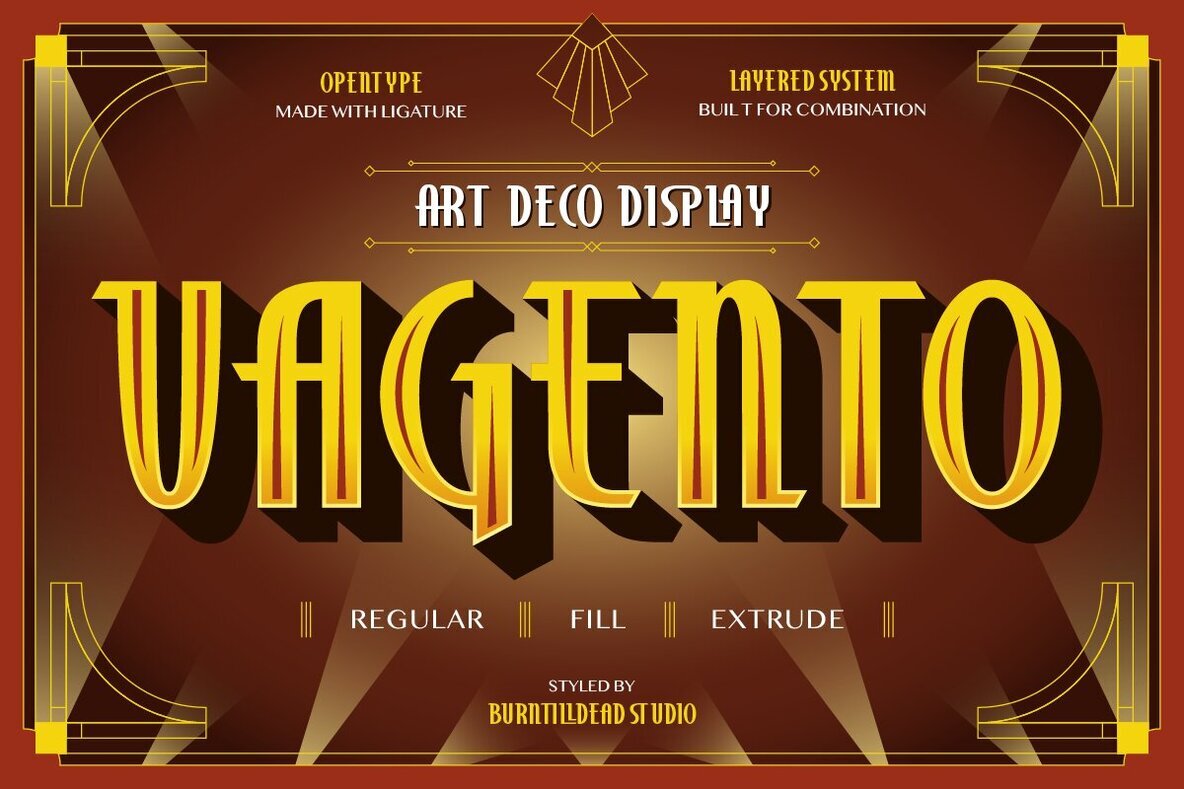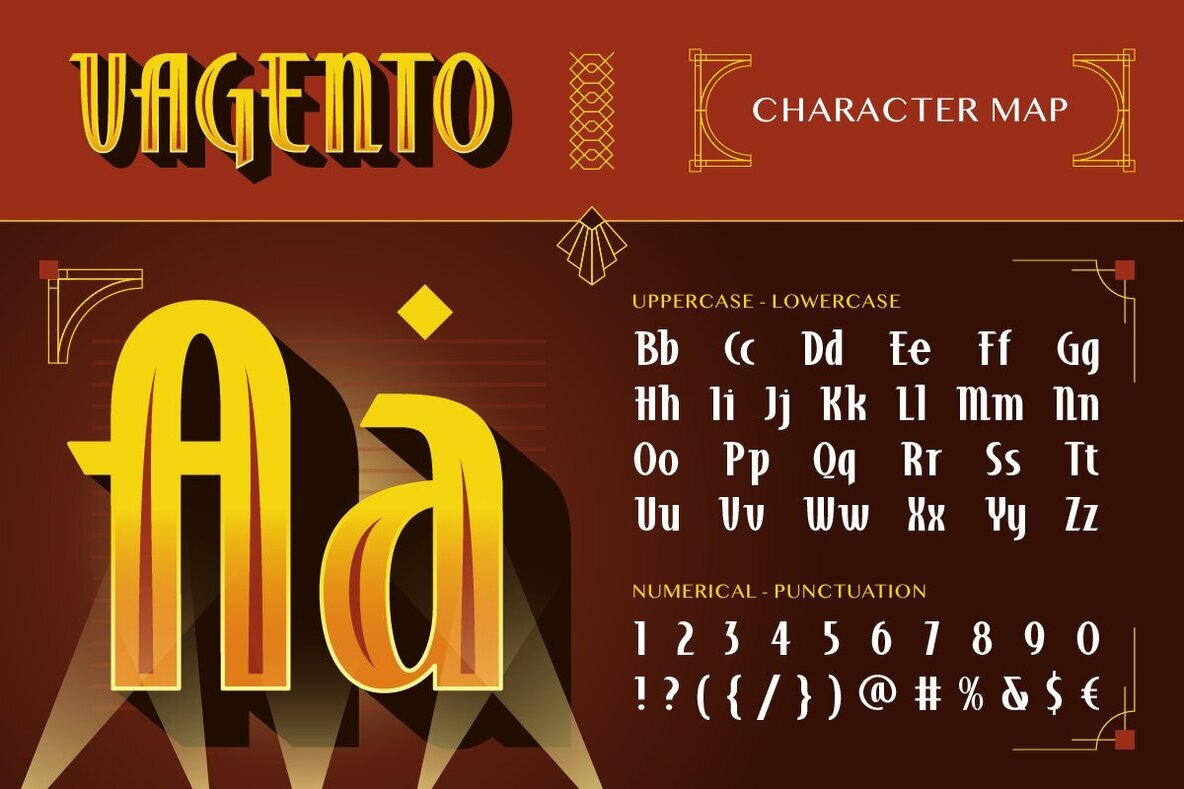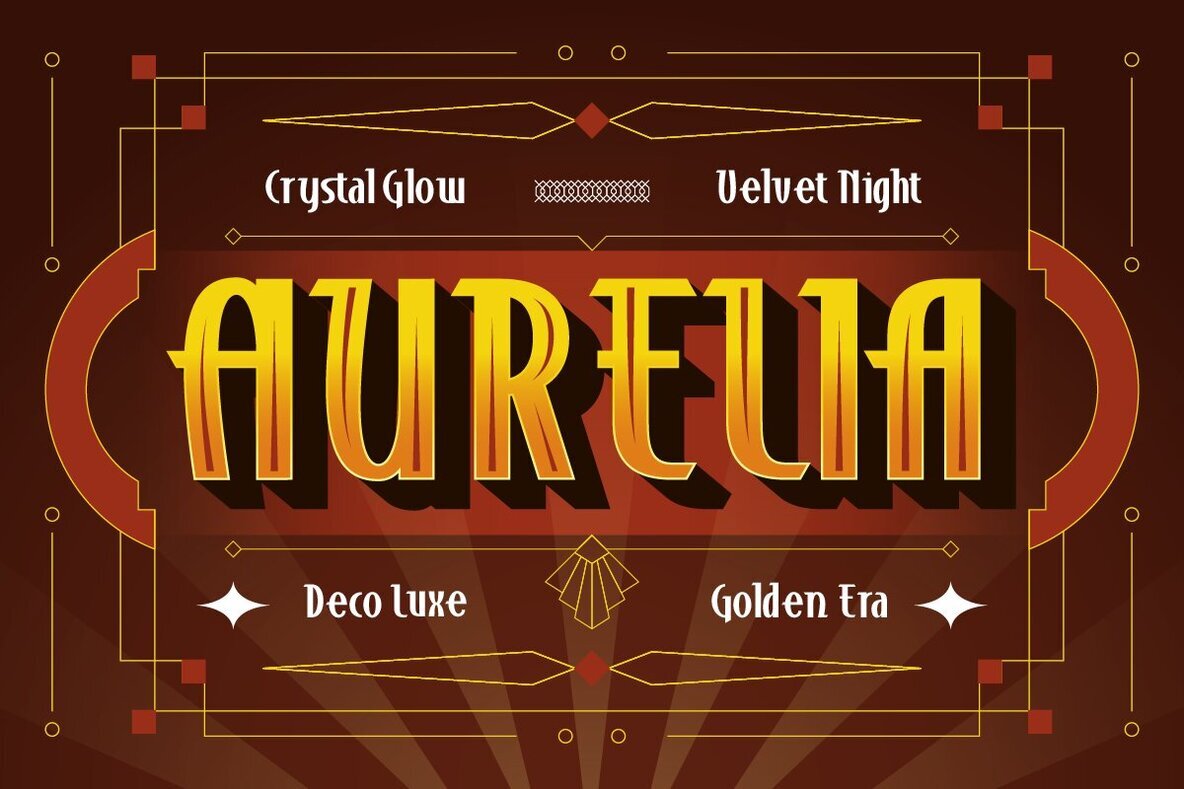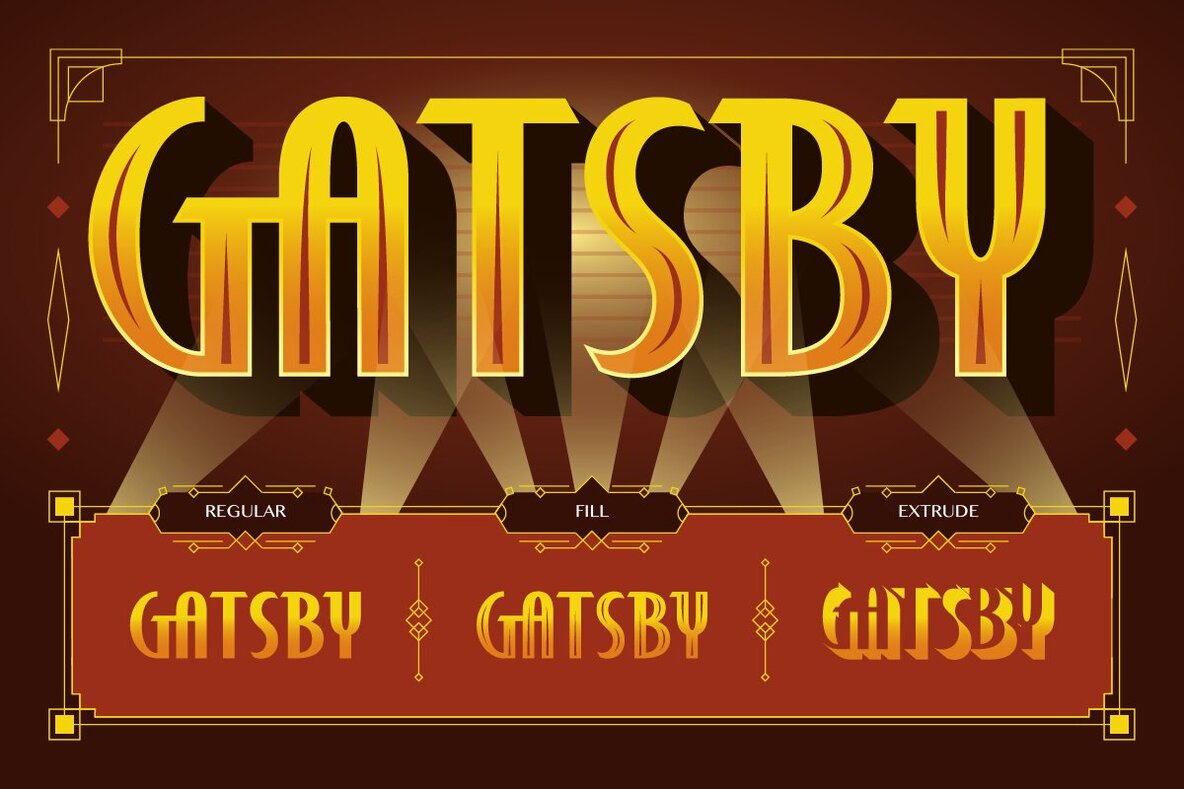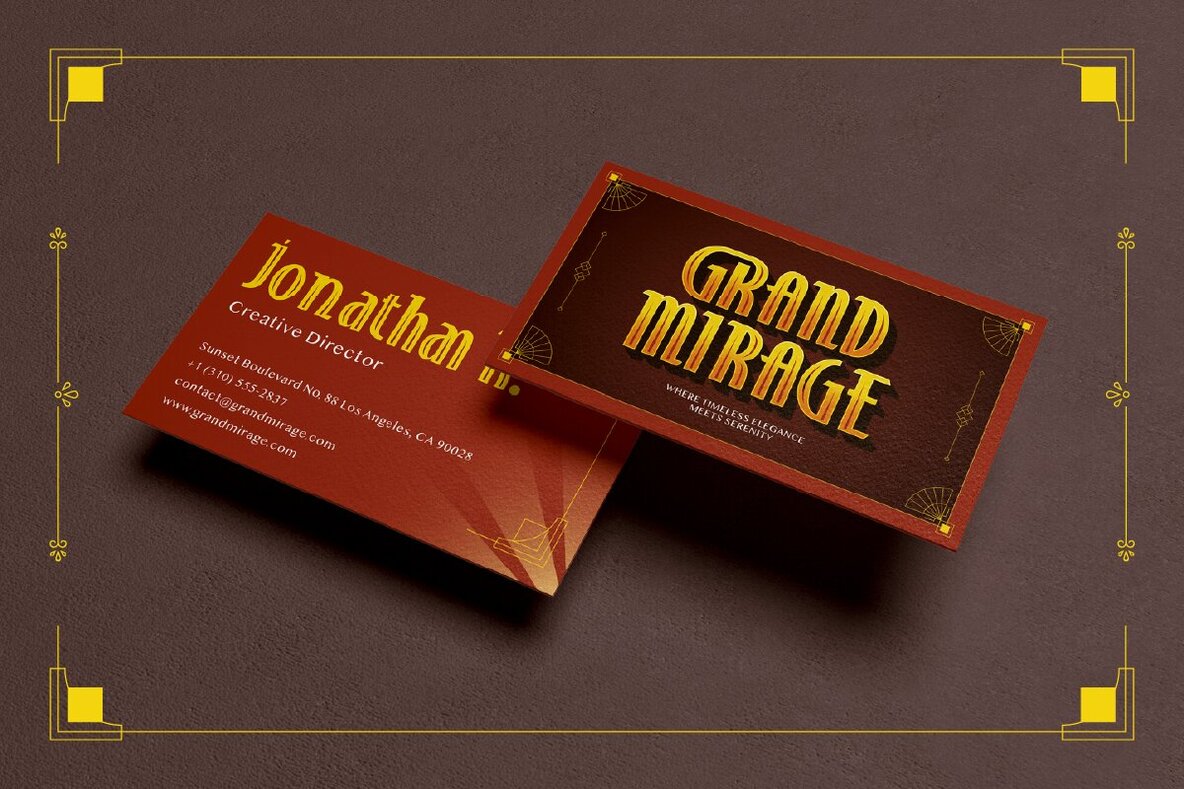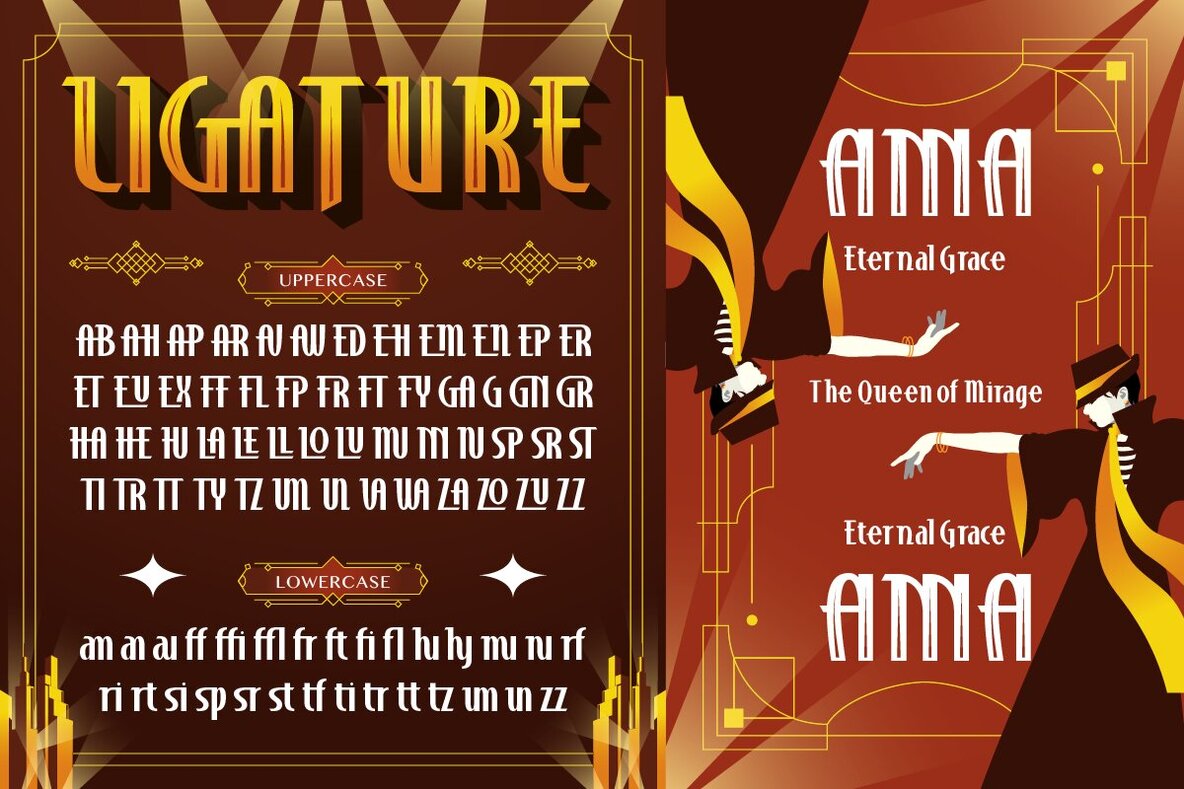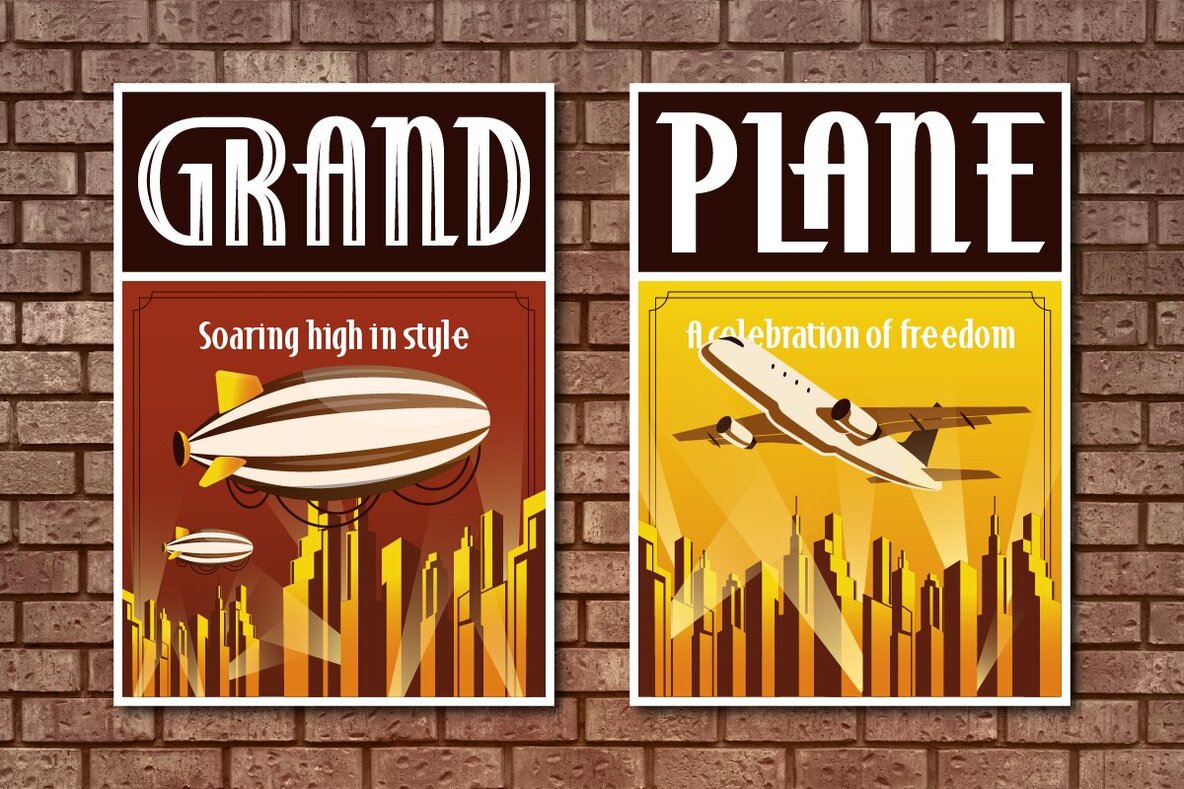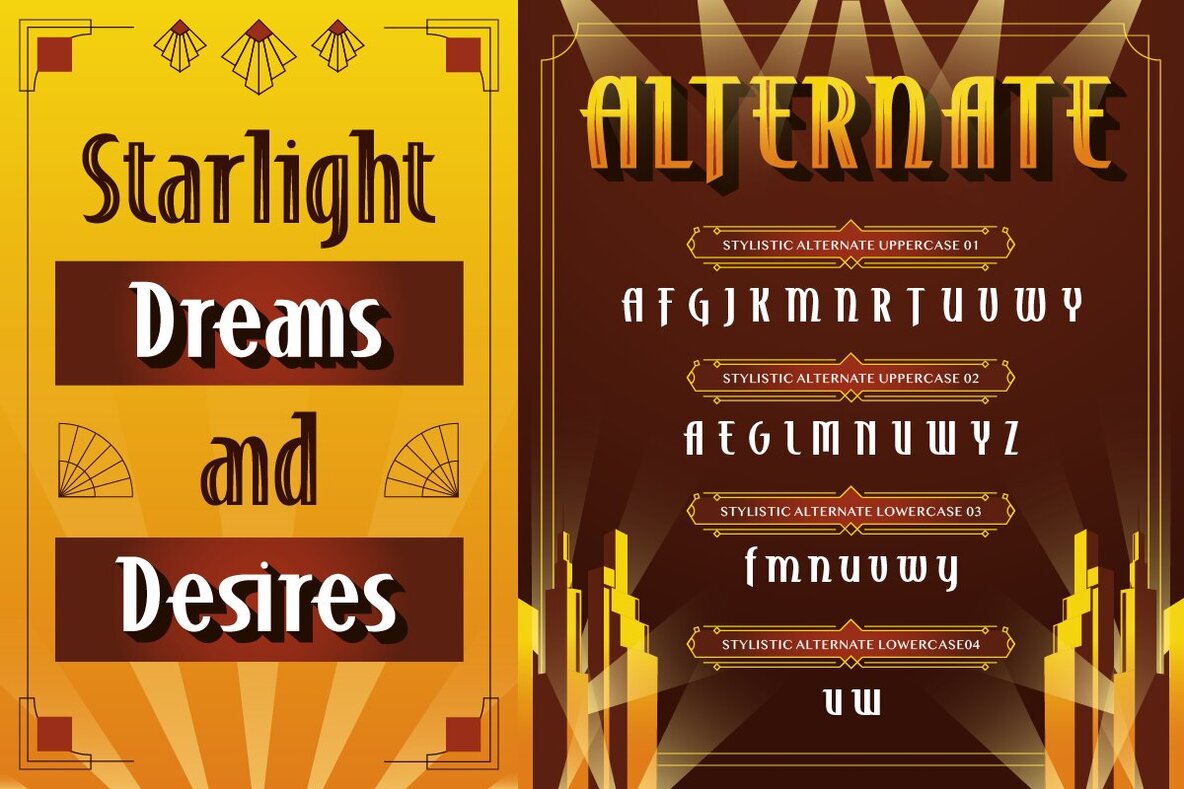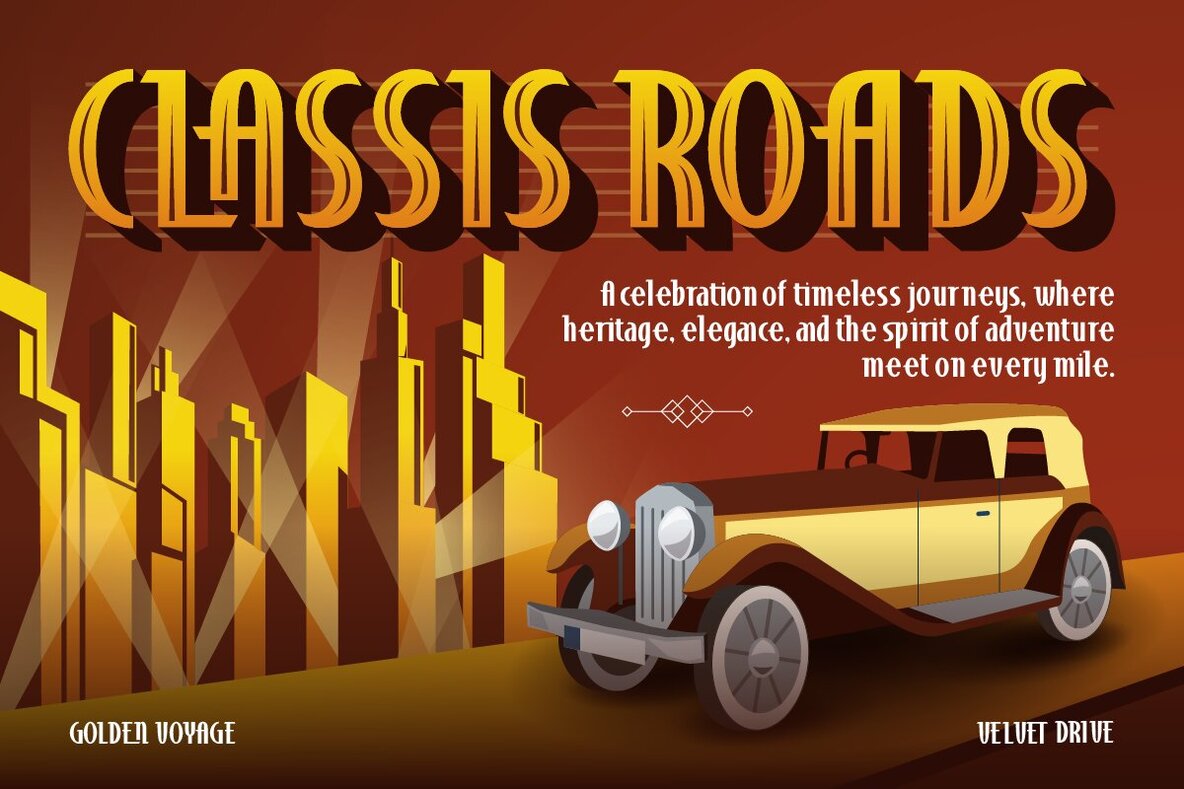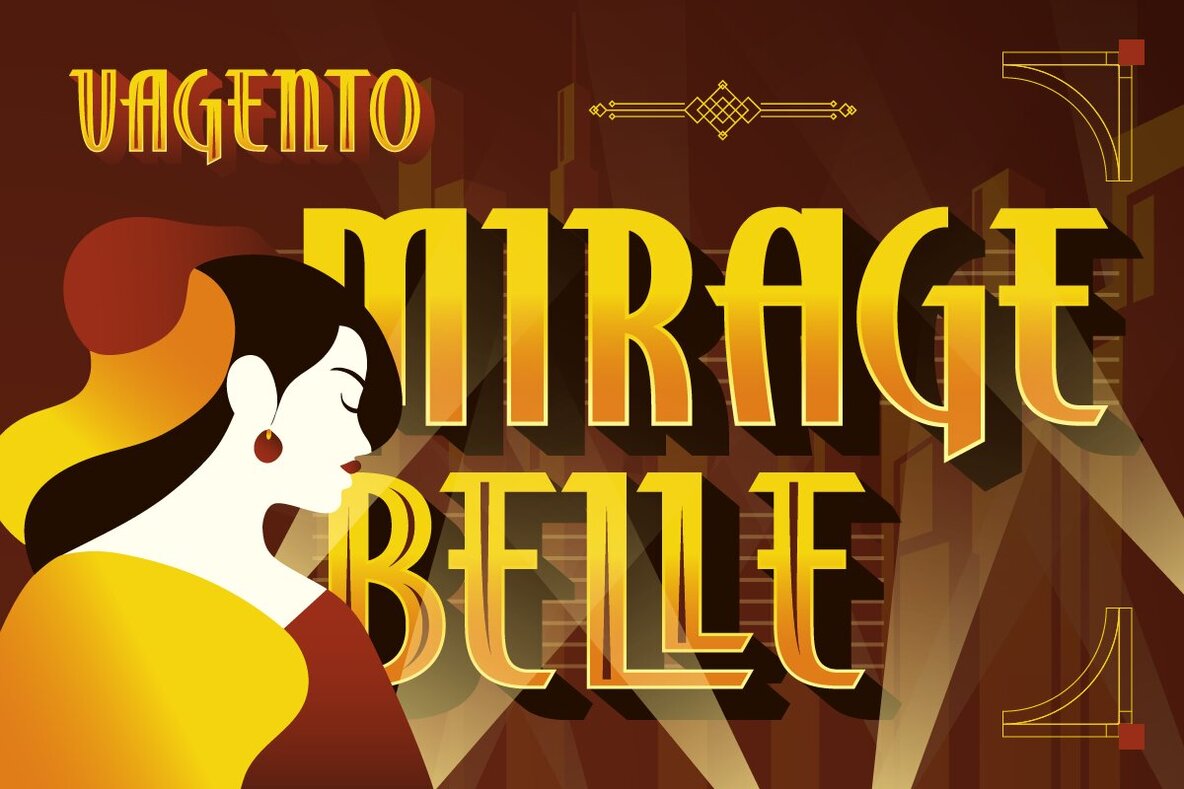
Vagento Font
Vagento Regular
Vagento Extrude
Vagento Fill
Vagento channels the spirit of the jazz era, drawing on the iconic Art Deco aesthetic of the 1920s. Its bold geometric forms and refined curves recall the luxury and excitement of nights filled with ambition and golden lights. Layered styles—including Regular, Fill, and Extrude—allow for distinctive dimensional effects, evoking the opulence of the Great Gatsby era.Vagento Art Deco Display Font
This typeface is ideal for branding, invitations, posters, and logos that call for vintage sophistication. Whether designing for a jazz venue, wedding event, or modern gallery, Vagento adds a luxurious edge and a timeless quality to your visuals. Elevate your projects with a font that celebrates enduring elegance.Features